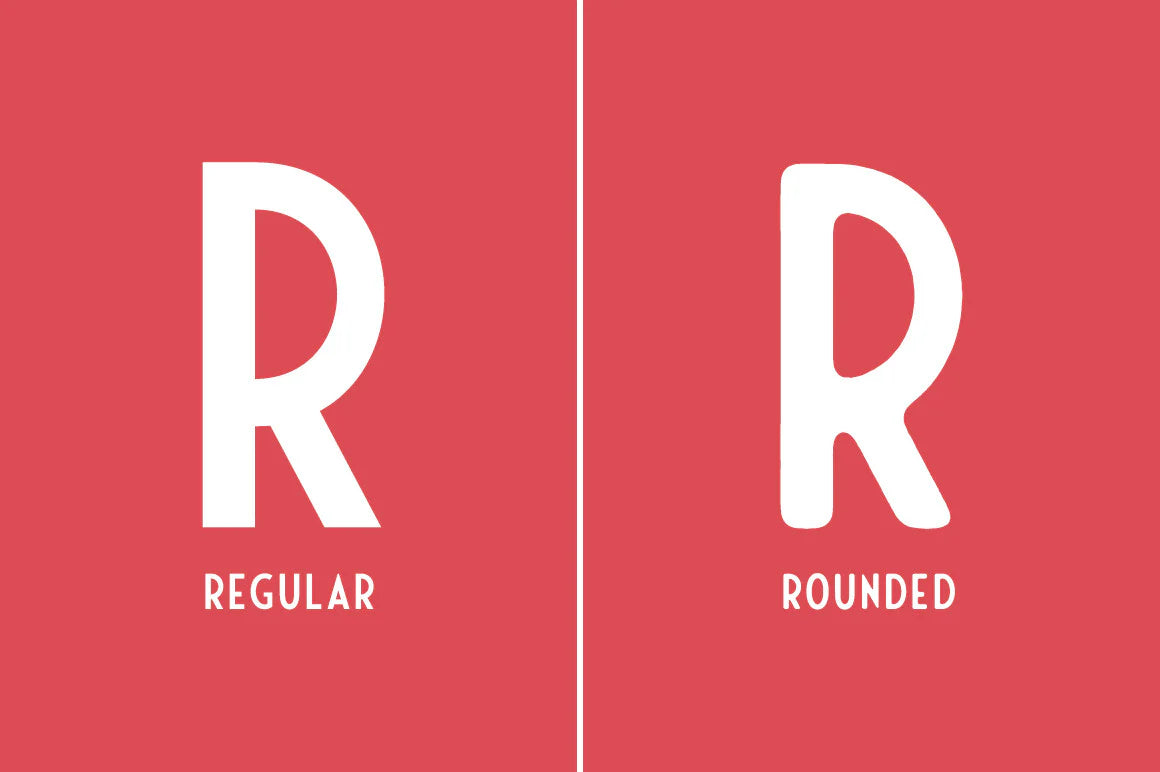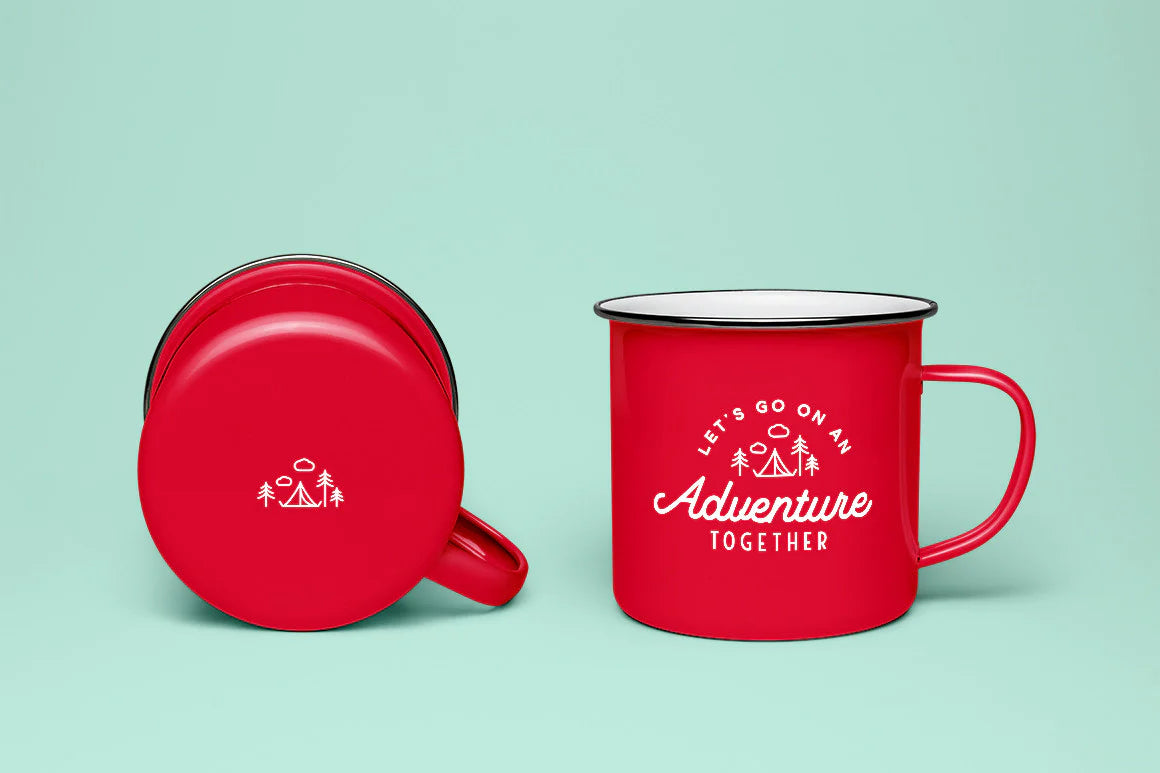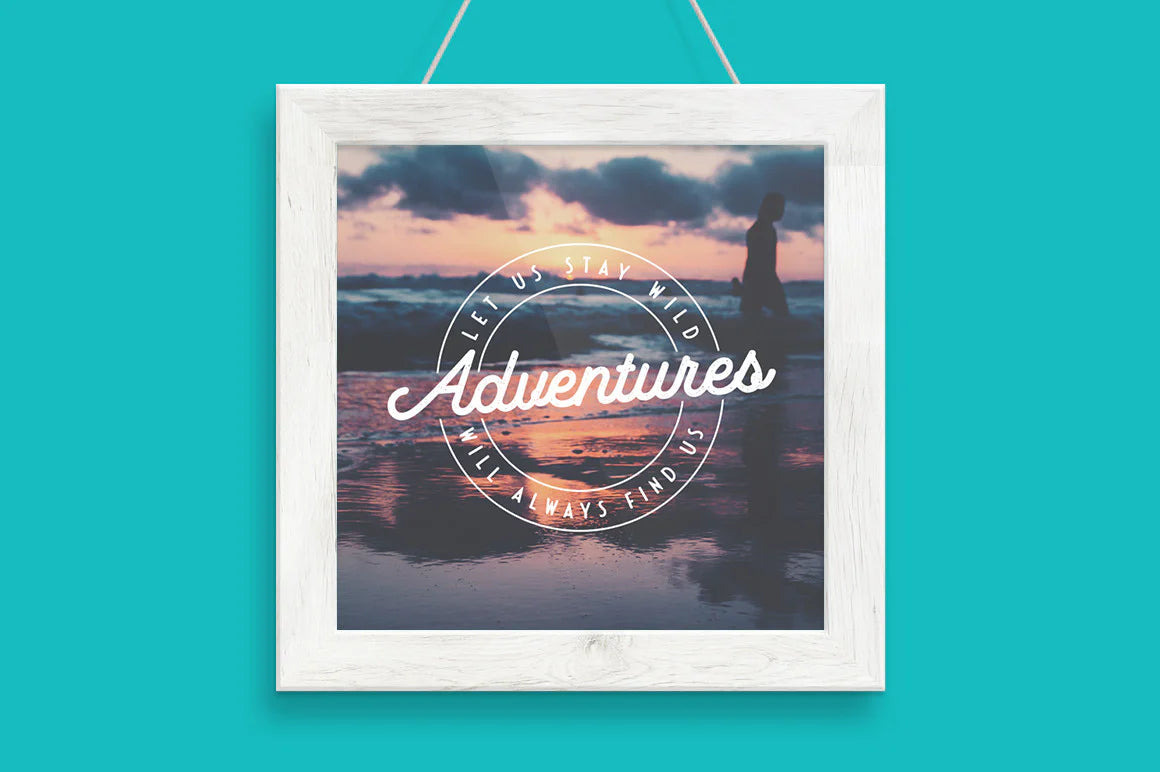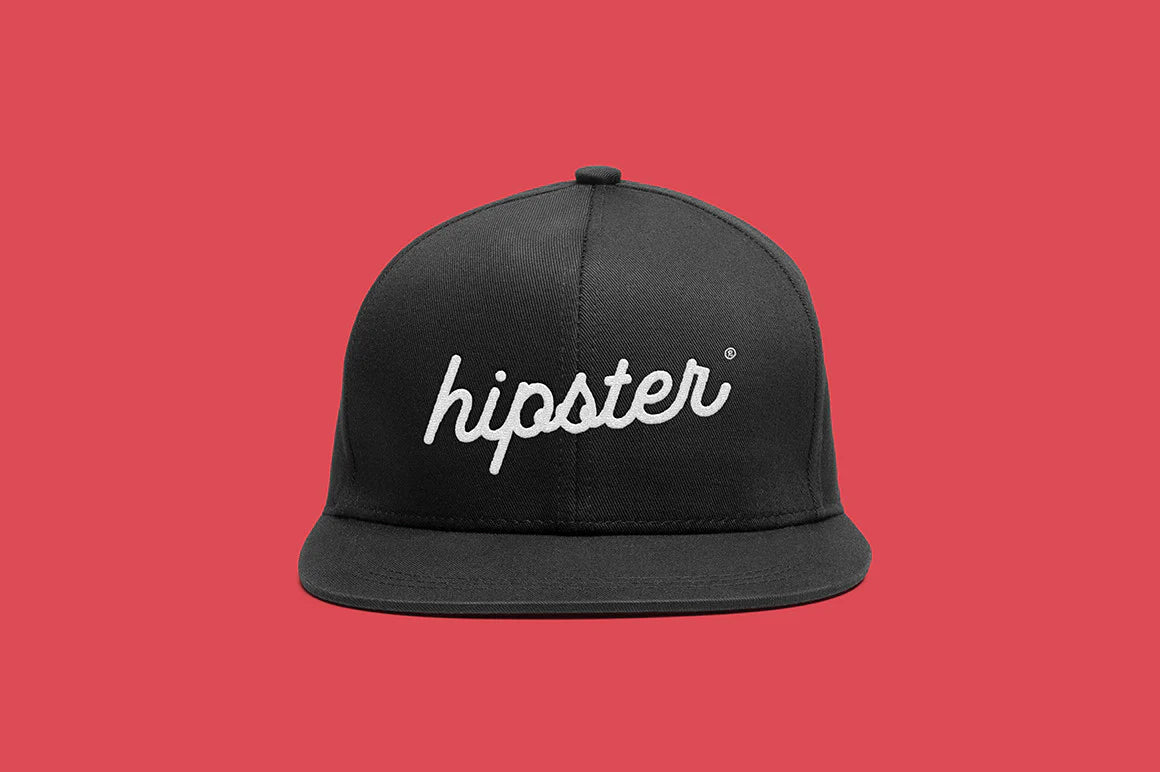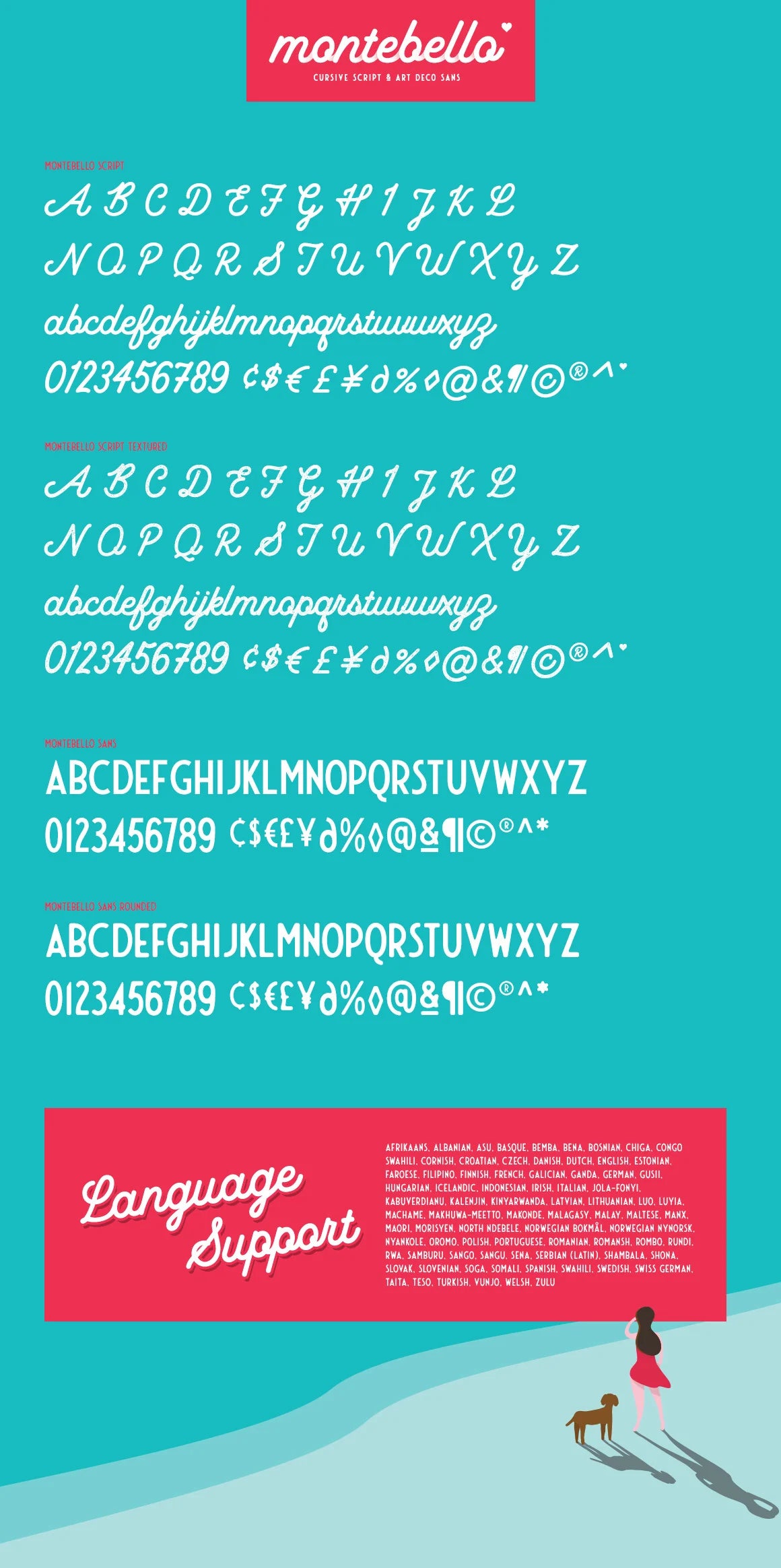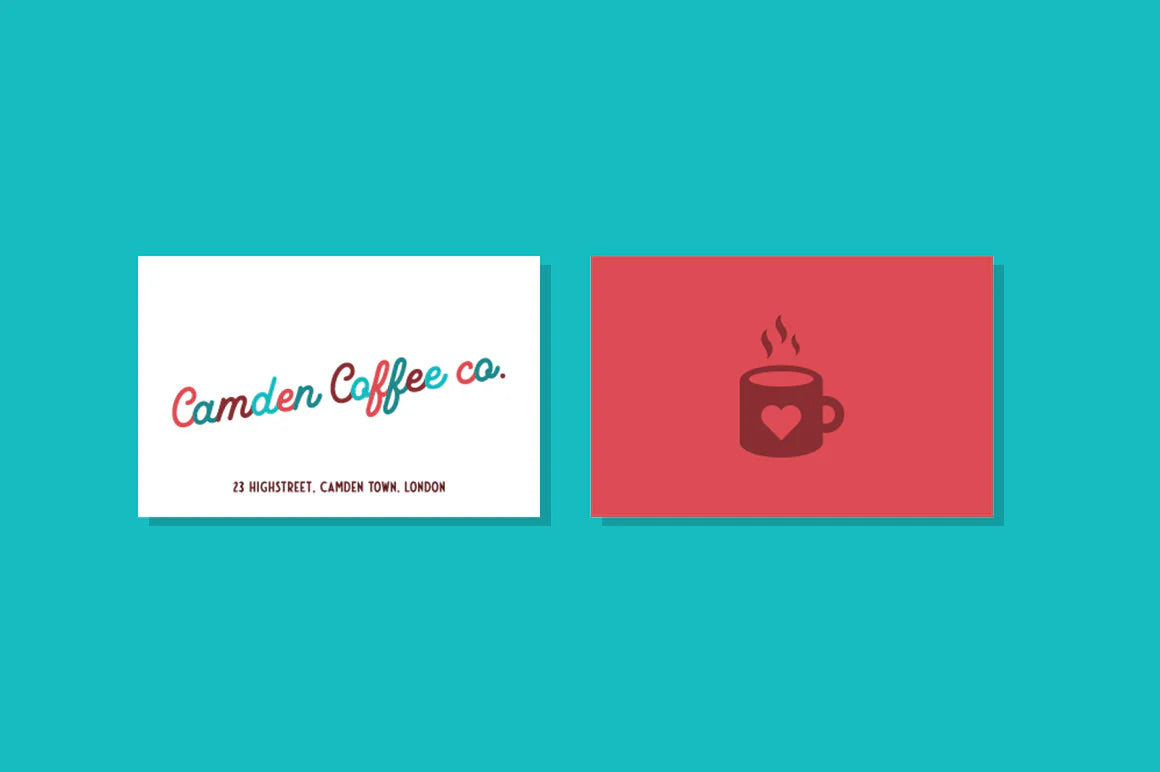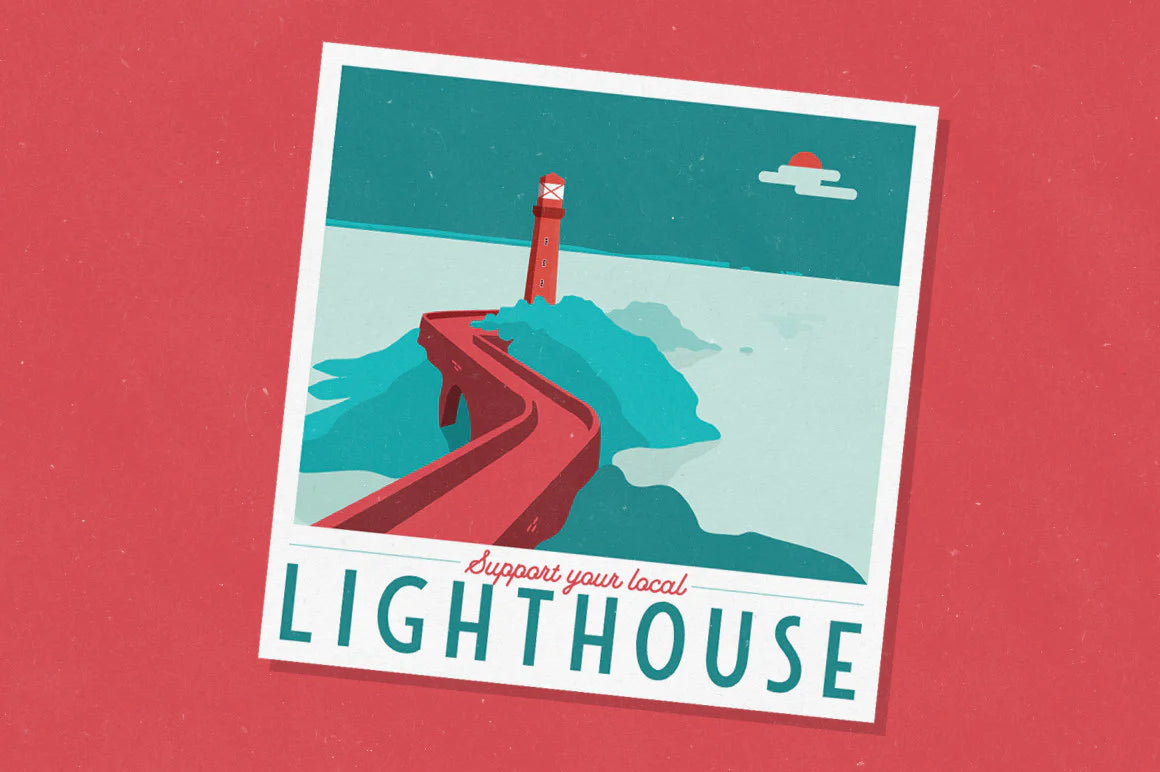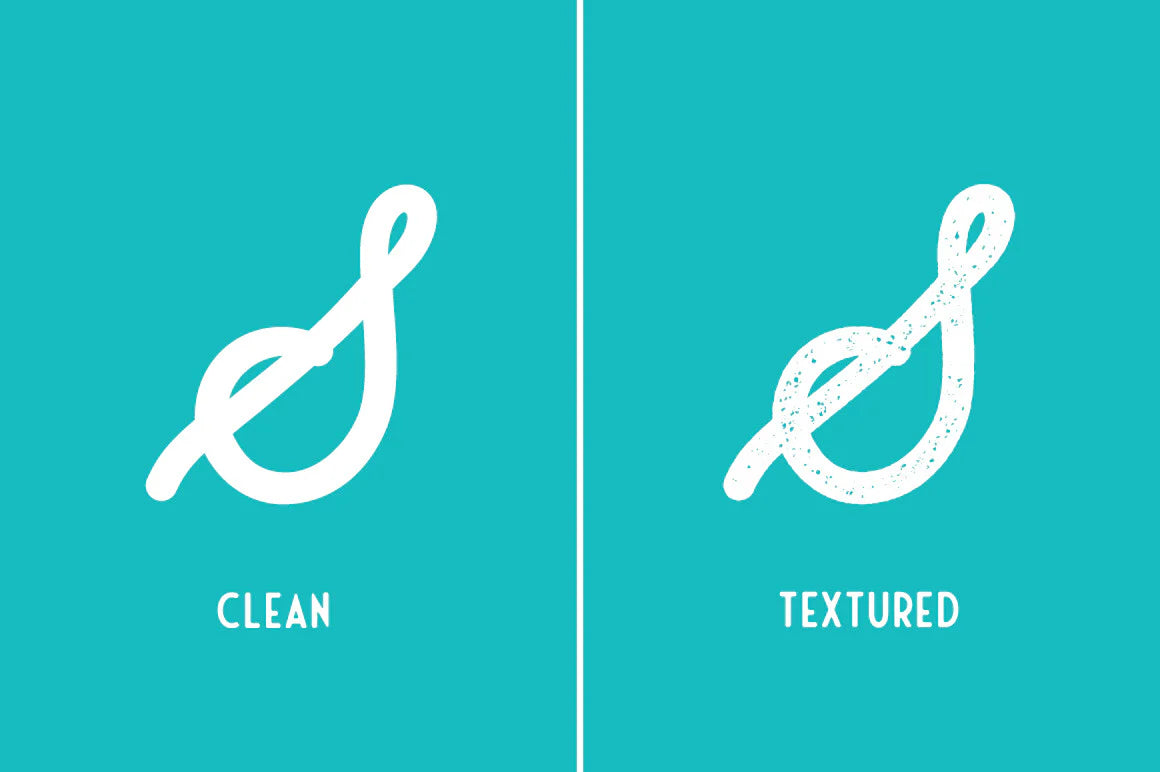
Imagine the warm sand laying between your toes, sipping on a chilled cocktail. As you look out to the horizon the sun sets, casting long shadows from the beautiful mountains that break up the crystal blue waters of the still and quiet ocean.
You feel that you're in a perfect picture postcard moment, but then the boss shouts at you from the other side of the office and you return to reality and the monotony of life. I can't promise you a paradise getaway like this but using Montebello font will brighten your day and your designs.
Montebello Script - I set out to make a really clean and clear mononline cursive script typeface that is easy to read while keeping a sense of personality. Paying close attention to how each letter connects.
Montebello Sans - A simple sans-serif typeface which has hints of art deco styling with it's low cross bars. It perfectly partners the script and is inspired by the travel posters of the 1950s.
Montebello Script Textured - Roughened & Textured version of the standard script.
Montebello Sans Rounded - A softened version of the standard sans version.